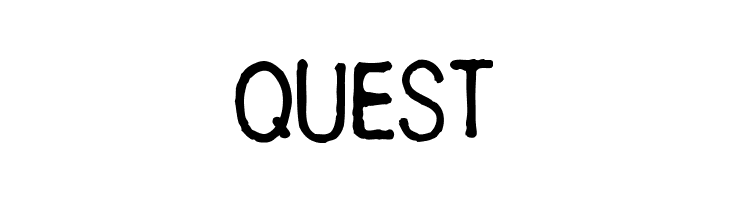
H74 East Zombie High Font
- Font: H74 East Zombie High
( Fonts by Michael Tension - www.TensionType.com )
A playful, hand-drawn font with bold, irregular strokes.